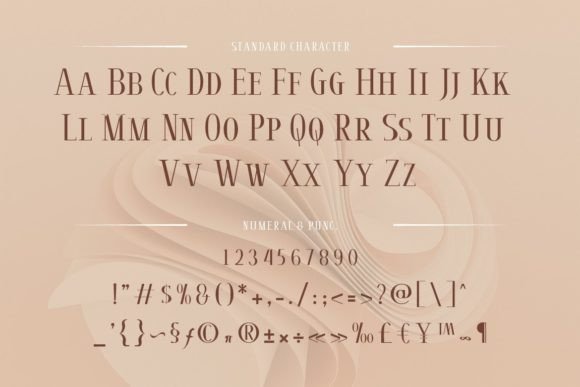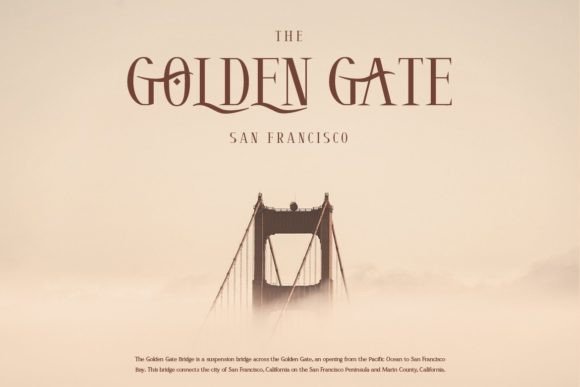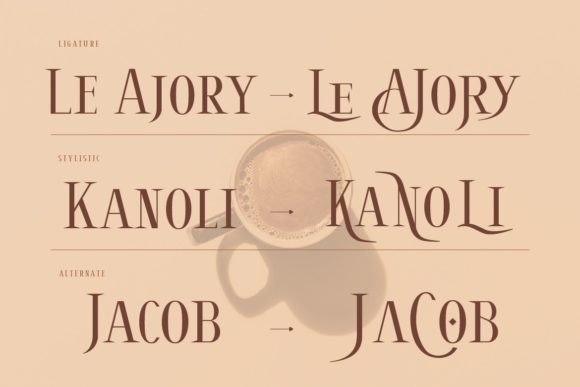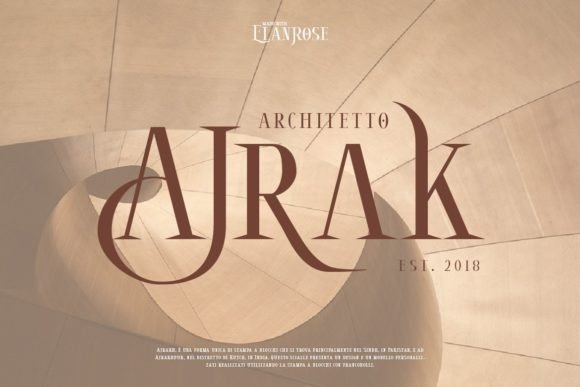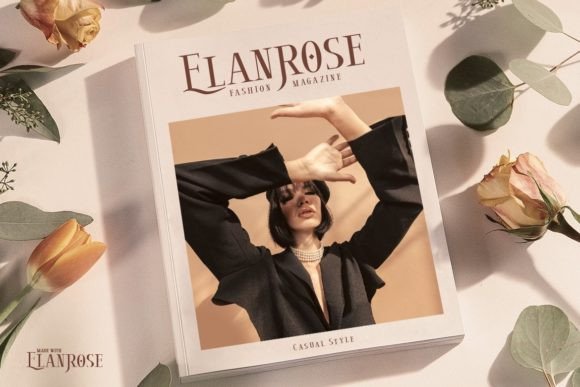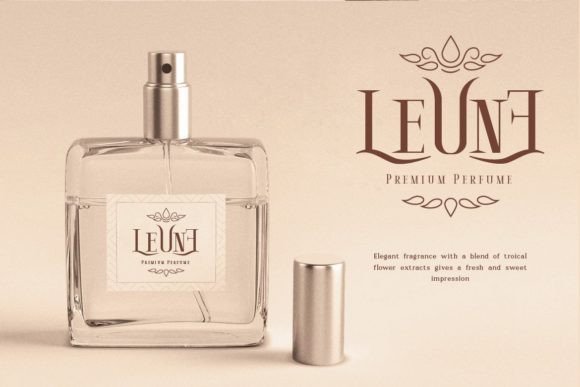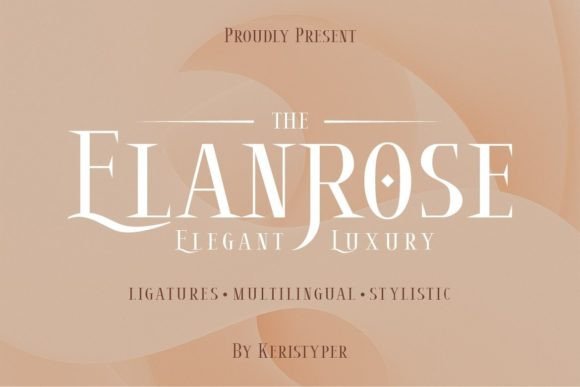
Introducing Elanrose: The Modern-Style Serif Font for Elegant Designs
In the world of typography, fonts play a crucial role in conveying the tone and personality of a brand, product, or creative project. For designers and crafters seeking a font that exudes elegance and luxury, look no further than Elanrose. This modern-style serif font is designed to elevate your designs with its sophisticated and refined aesthetic.
The Elegance of Elanrose
Elanrose boasts an elegant and luxurious feel in every shape, making it an ideal choice for a wide range of design applications. Its serif lines and curves are carefully crafted to create a sense of refinement and poise, perfect for projects that demand a high level of sophistication. Whether you’re designing a logo, creating social media graphics, or working on a movie or book title, Elanrose is sure to impress.
One of the standout features of Elanrose is its versatility. This font is not limited to a specific type of project or text length. It can be used for:
- Logo Design: Create a lasting impression with a logo that exudes elegance and sophistication.
- Social Media: Elevate your social media graphics and make your content stand out.
- Movie Titles: Add a touch of luxury to your movie titles and posters.
- Book Titles: Create eye-catching book titles that reflect the elegance of your content.
- Short Text: Perfect for short phrases or sentences that require a touch of sophistication.
- Long Text Letters: Elanrose is also suitable for longer texts, making it an excellent choice for articles, blog posts, and more.
Pairing Options
Elanrose is designed to be paired with a variety of font styles, allowing you to create visually appealing and harmonious designs. It works particularly well with:
- Sans Serif Fonts: Create a beautiful contrast by pairing Elanrose with a clean sans serif font.
- Serif Fonts: Combine Elanrose with another serif font for a classic and elegant look.
Why Choose Elanrose?
With so many fonts available, why choose Elanrose? Here are just a few reasons:
- Unique Aesthetic: Elanrose offers a distinctive and modern take on traditional serif fonts.
- Elegance and Luxury: This font is designed to convey a sense of sophistication and refinement.
- Versatility: Elanrose can be used for a wide range of design applications and text lengths.
- Easy to Read: Despite its elegant design, Elanrose remains easy to read, even in smaller sizes.
In conclusion, Elanrose is a modern-style serif font that offers an elegant and luxurious feel, making it perfect for designers and crafters seeking to elevate their designs. Its versatility, pairing options, and unique aesthetic make it an excellent choice for a wide range of projects. Whether you’re working on a logo, social media graphics, or longer texts, Elanrose is sure to impress. So why wait? Discover the elegance of Elanrose and take your designs to the next level.